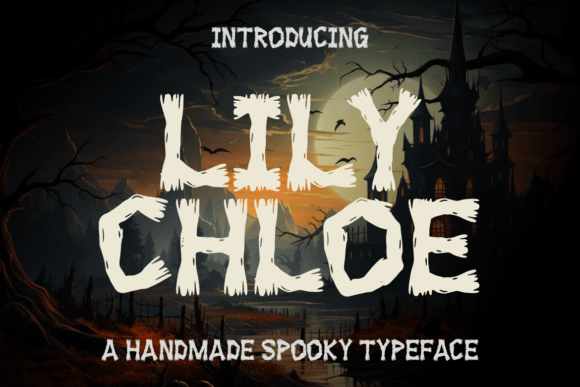
Welcome to the enchanting realm of Lily Chloe, a display font specifically designed to cast a spell of spookiness and intrigue. Bathed in the ethereal moonlight, Lily Chloe conjures up images of haunted houses, whispering spirits, and mysterious legends that will awaken your inner thrill-seeker. Unleash your creativity and let the dark magic of Lily Chloe transform your designs into captivating works of art.
Crafted with meticulous precision, Lily Chloe's strokes exude an aura of mystery, perfectly capturing the essence of the supernatural. Each letter, like a whisper from the beyond, carries a story of forgotten lore and untold tales. Watch as your words take on a haunting allure, inviting readers to embark on a journey through the unknown.
Transport yourself to a realm where imagination knows no bounds. Whether it's an invitation to a Halloween soirée, a poster heralding the arrival of All Hallows' Eve, or a website design that oozes eerie elegance, Lily Chloe will bewitch and enthrall your audience. It's the perfect font for creating merchandise that will make hearts race, greeting cards that send shivers down spines, and warning signs that evoke a sense of foreboding.
Unlock the potential of Lily Chloe today and weave a tapestry of intrigue and wonder. This font is not just a tool; it's a gateway to a world where the ordinary becomes extraordinary. Dare to embrace the darkness and let Lily Chloe take your designs to breathtaking new heights. Embrace the supernatural and turn your creations into haunting masterpieces that will linger in the minds of those who behold them.